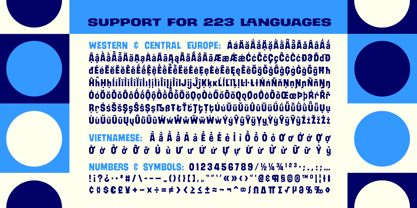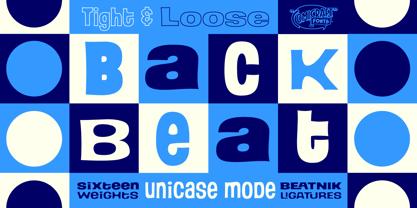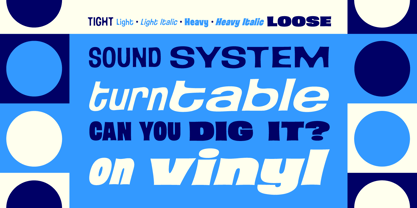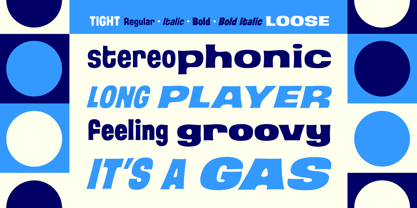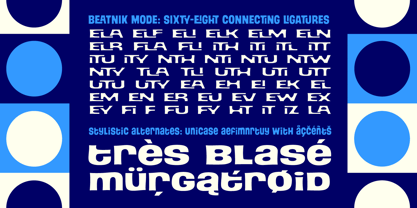
Back Beat Tight & Loose
The Back Beat Tight & Loose Font Family was designed by Richard Starkings, John Roshell and published by Comicraft. Back Beat Tight & Loose contains 16 styles and family package options. More about this family
You have to admit this is a rocking font, man. It's Fab AND Gear. Not only that, it's called BackBeat and it's GOT a backbeat! You can't lose it (if you back up all your data on a hard drive stored at a separate facility), any old way you choose it!
Yes, it's just gotta be Comic Book Fonts, if you want to dance with the folks who got all shook up about these kind of things. Yeah.
BackBeat remastered features 71 Beatnik Ligatures, Unicase Mode, and Variable Font with controls for Weight, Width & Italic Slant, for you kids who want to choose between Tight and Loose pants or Skinny and Wide jeans! Can you dig it?